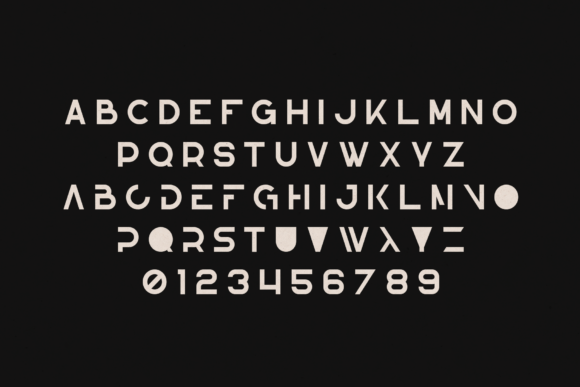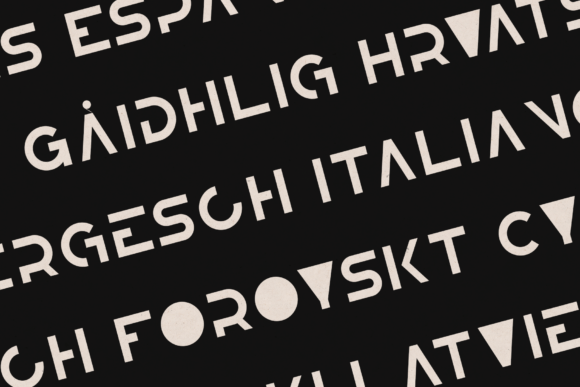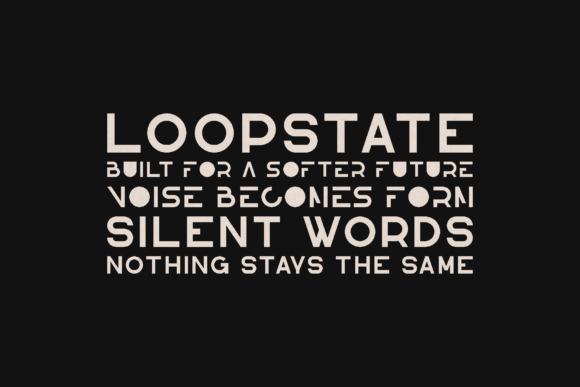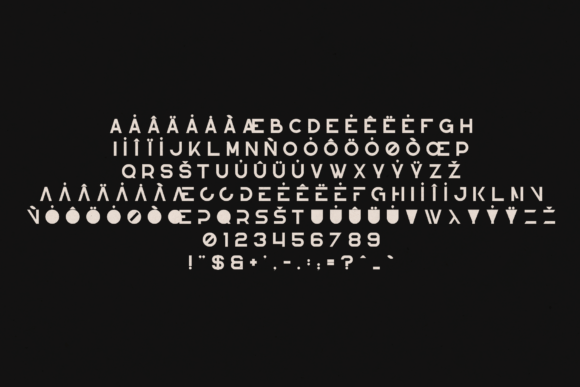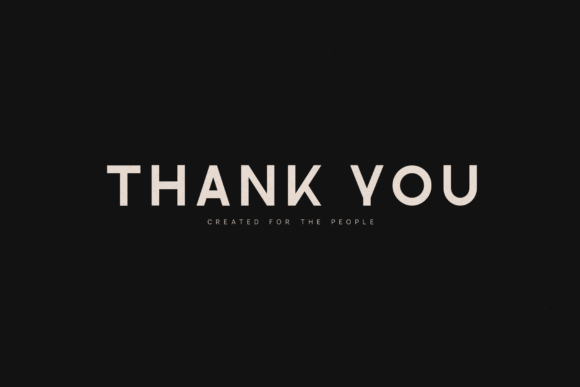
Introduction to Knowhere Font
Knowhere is a modern geometric display typeface built around bold shapes, balanced proportions, and distinctive circular forms that create a strong visual identity.
Knowhere is designed primarily for display use, where typography becomes the main visual element Its striking geometry works beautifully in posters, editorial layouts, branding identities, album covers, technology branding, modern packaging, advertising campaigns, and contemporary design systems.
Key Features of Knowhere Font